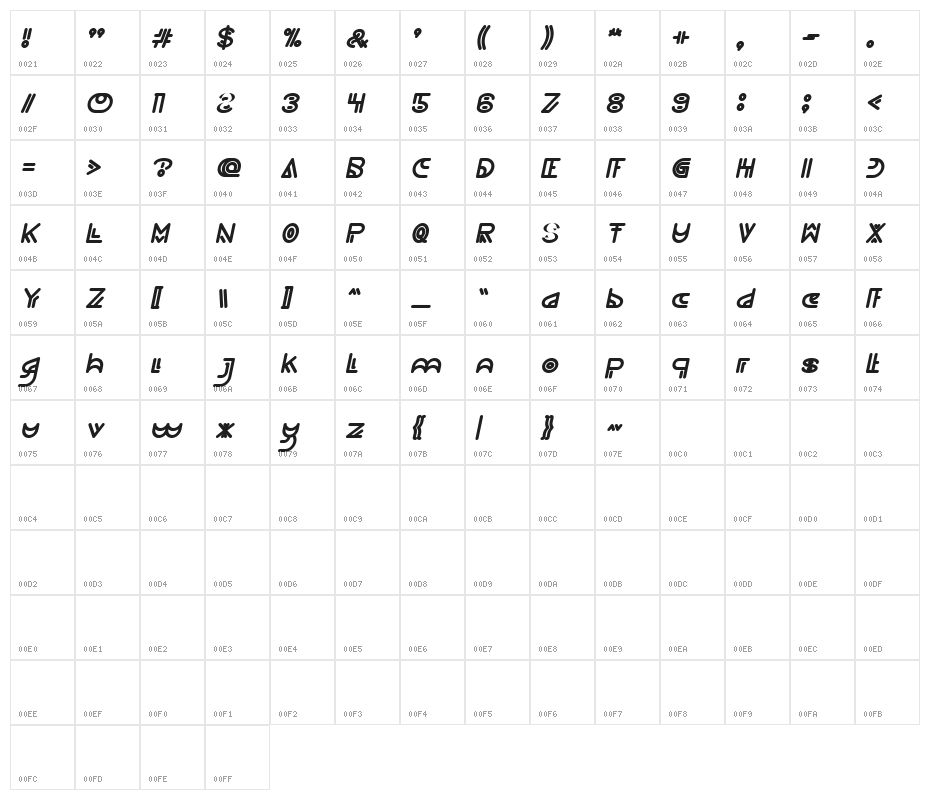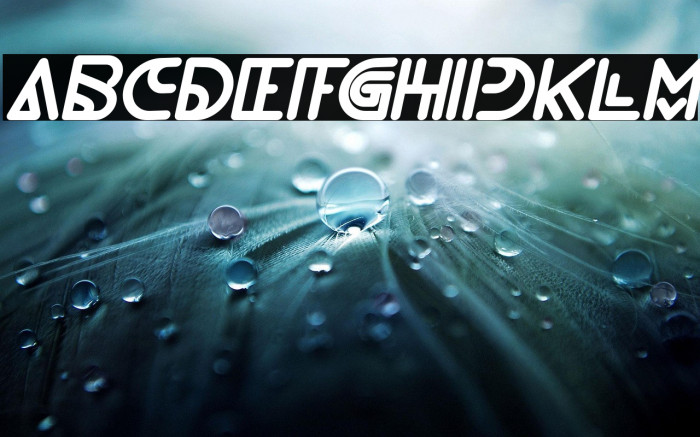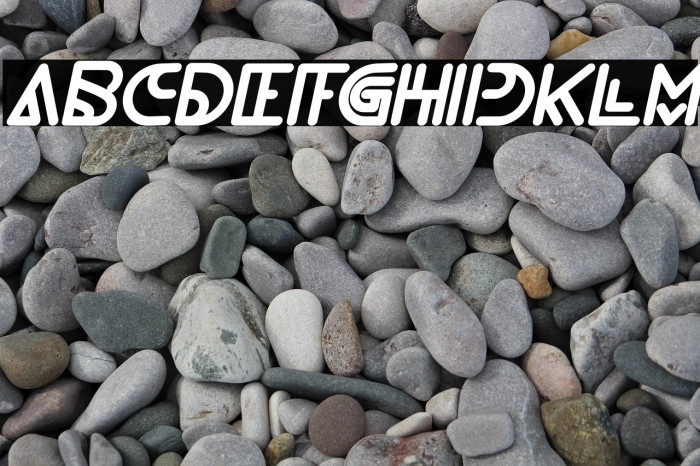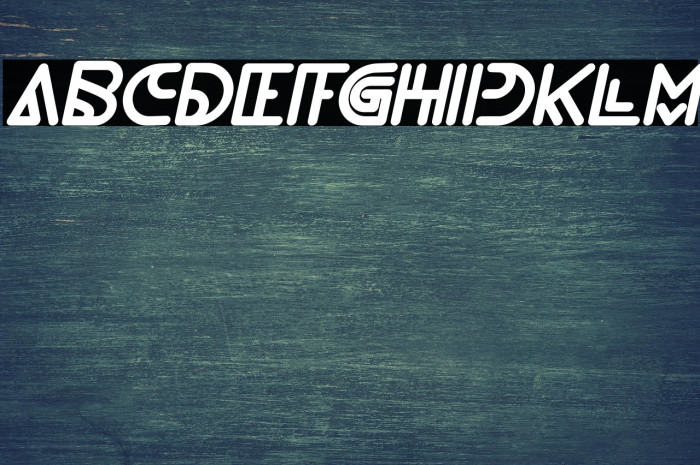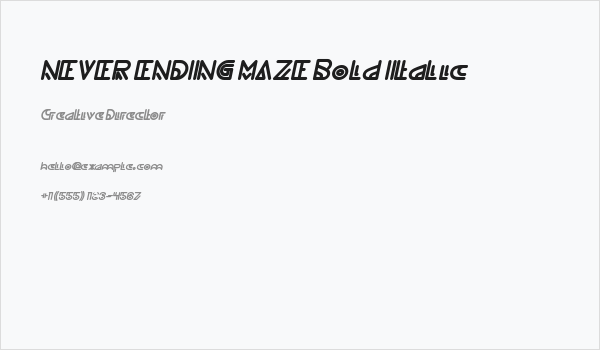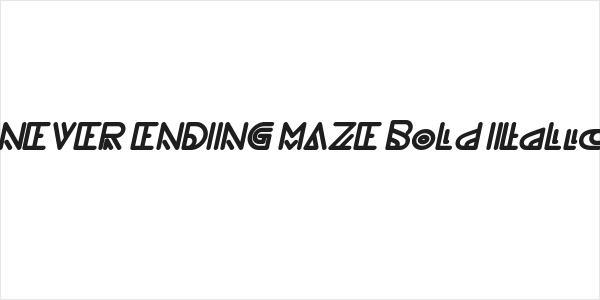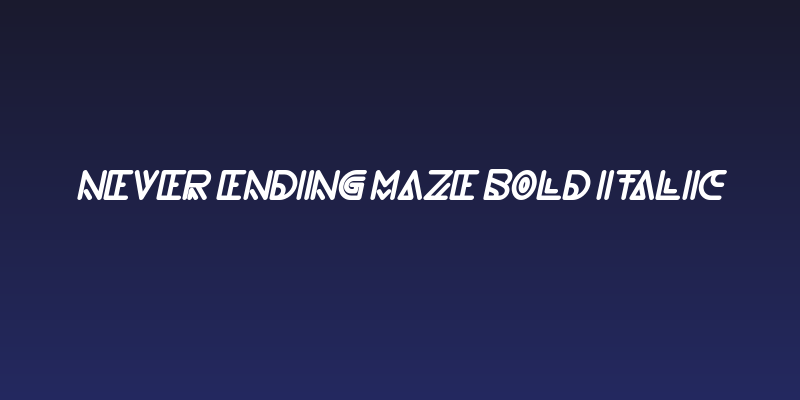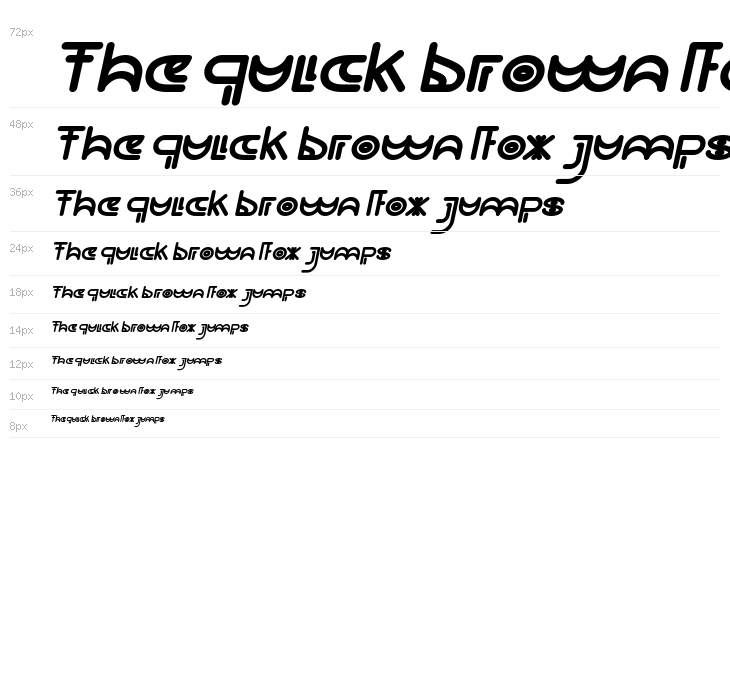
NEVER ENDING MAZE Bold Italic Font
NEVER ENDING MAZE Bold Italic Description
This font features a bold and italicized style with a futuristic and geometric design. The characters are constructed with thick strokes and rounded edges, creating a sense of movement and flow. The uppercase and lowercase letters are distinct, with unique shapes that give the font a dynamic appearance. Numbers and special characters maintain the same bold and flowing aesthetic, ensuring consistency across all elements. The overall look is modern and eye-catching, suitable for projects that require a strong visual impact.
| Proposed Projects | Ideal for sci-fi themed posters, modern branding, video game titles, and tech-related advertisements. |